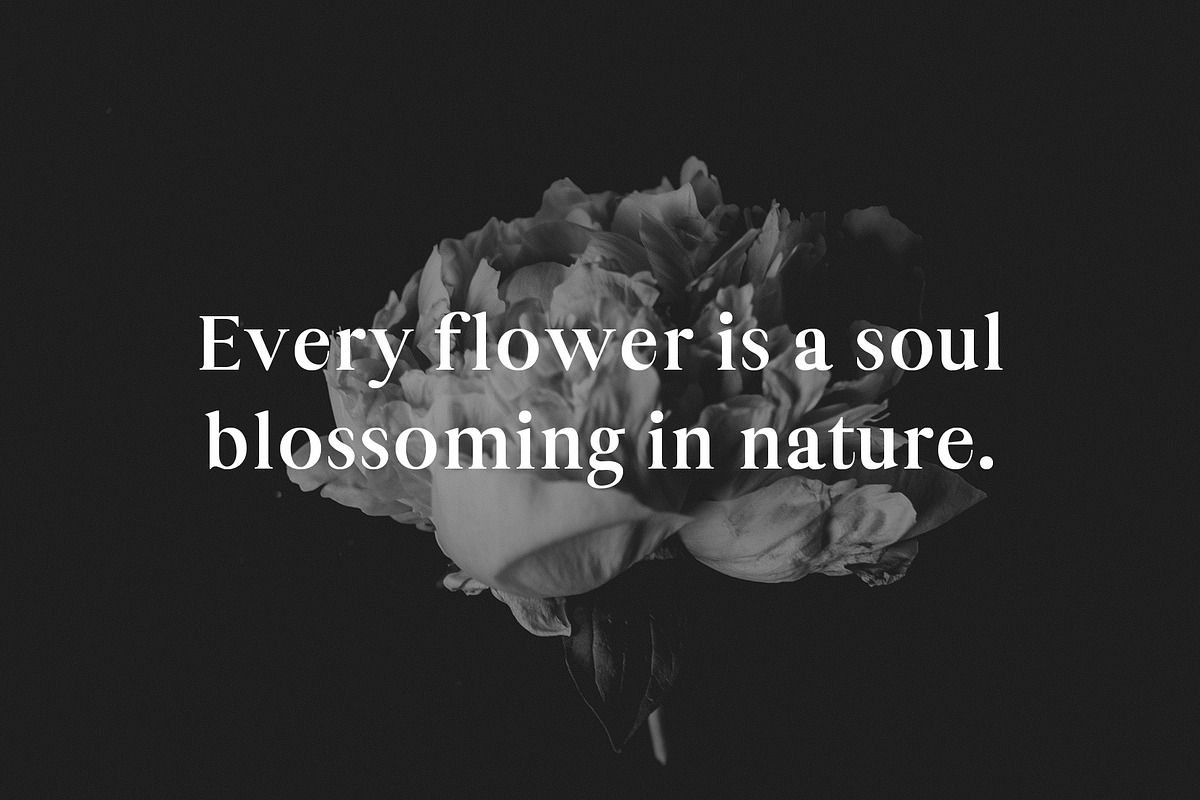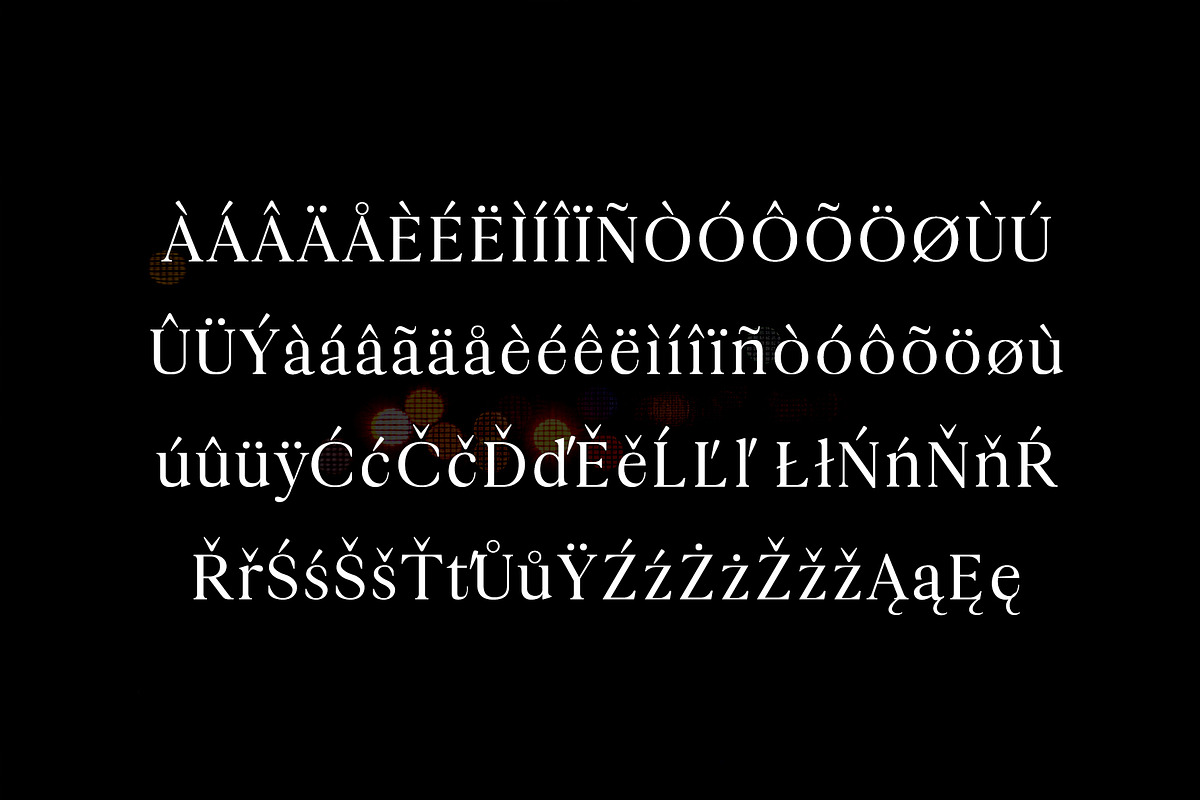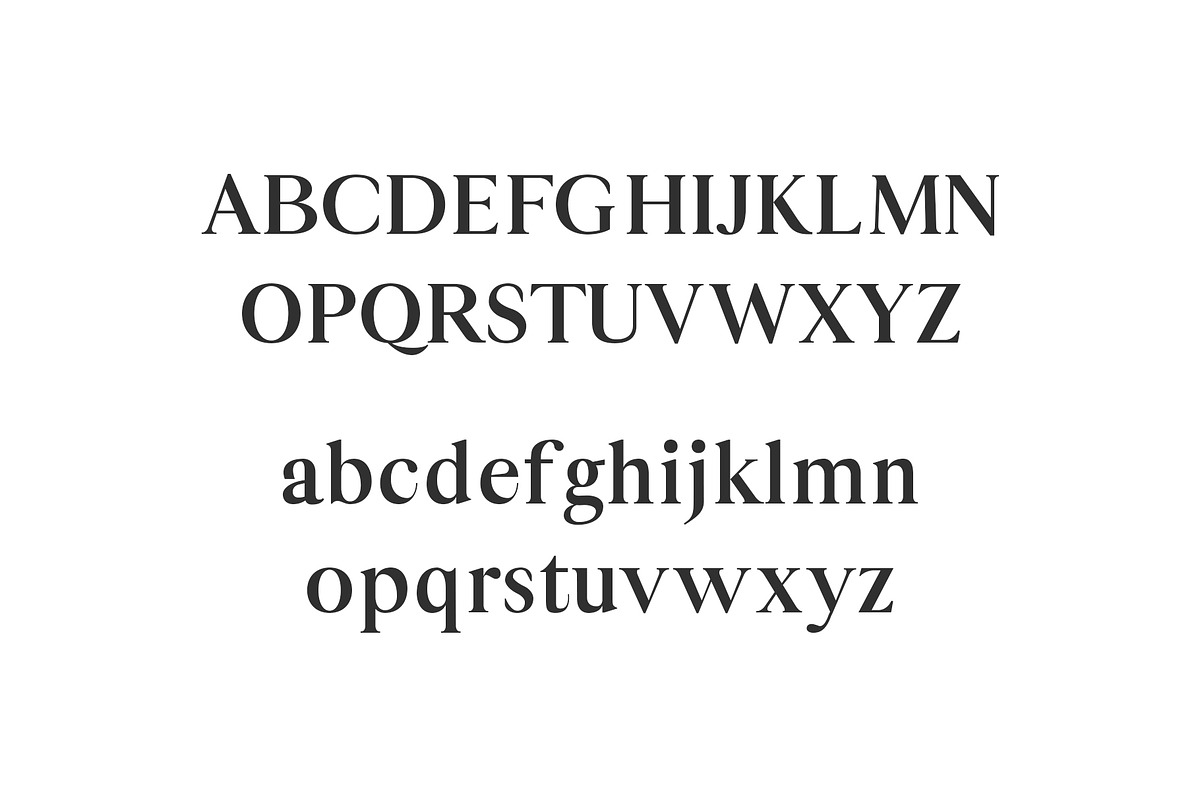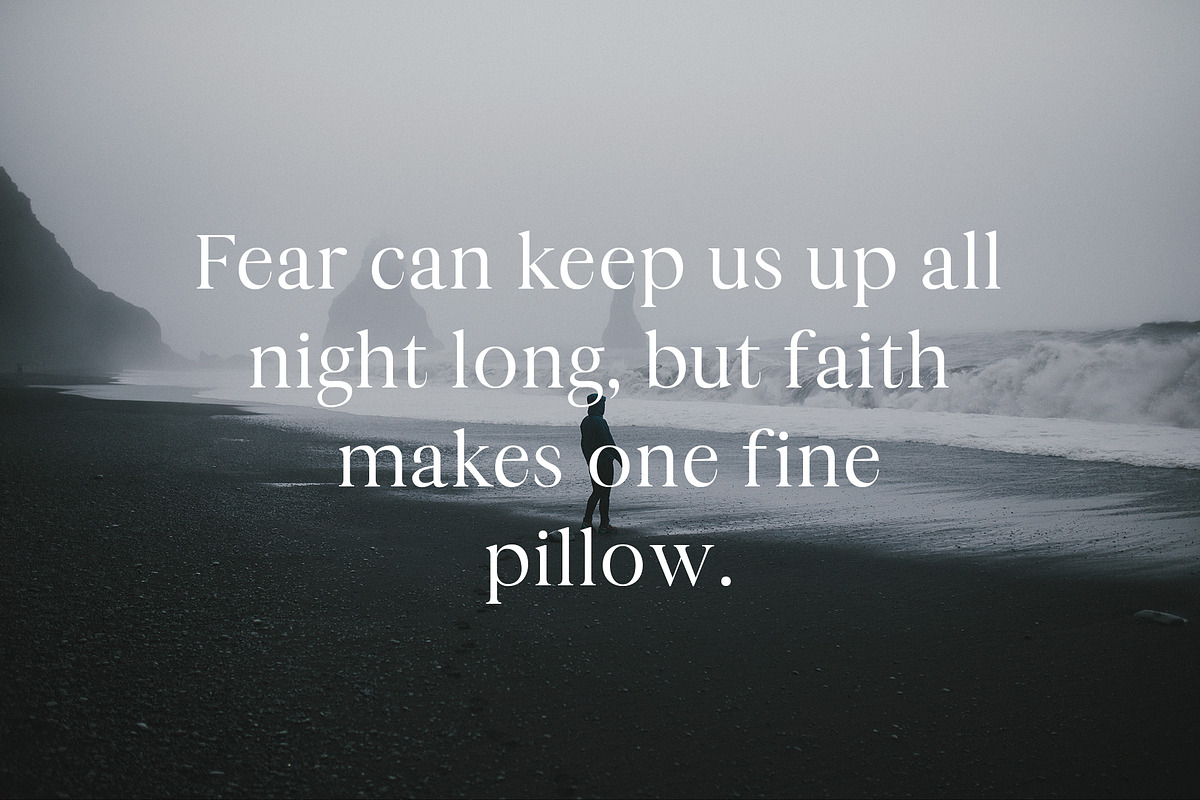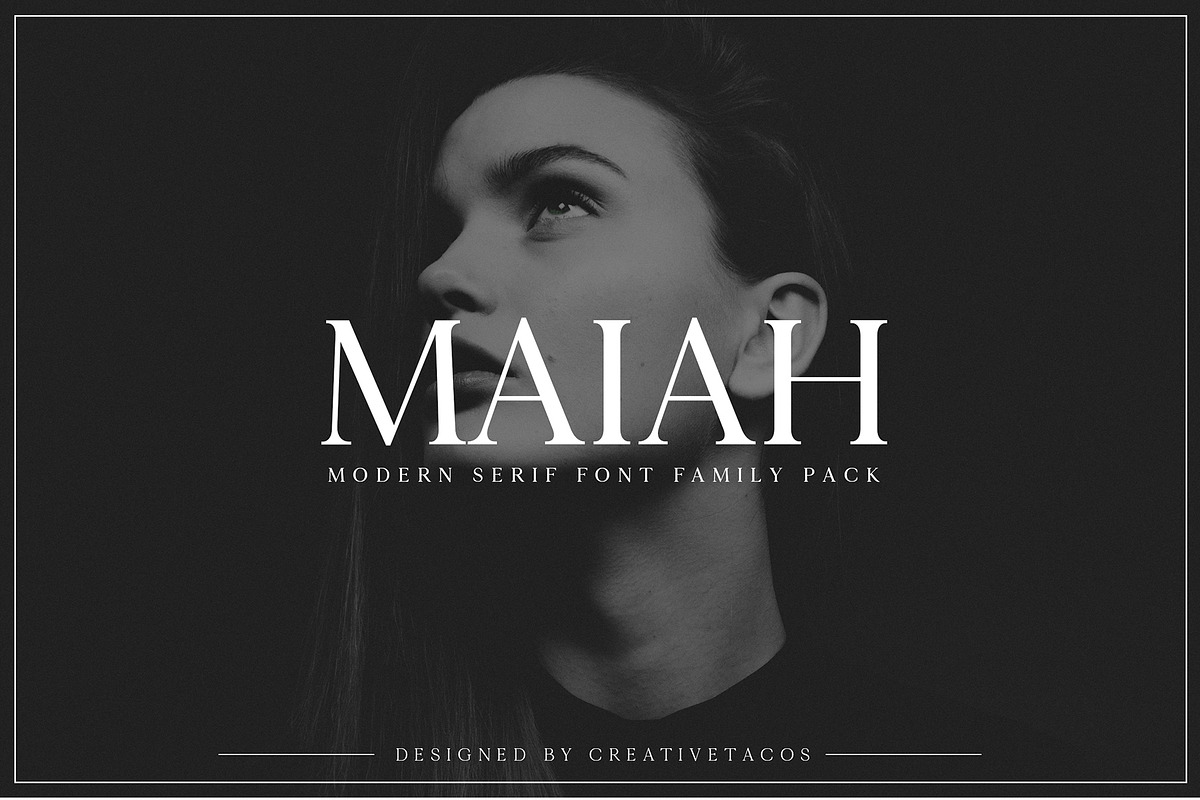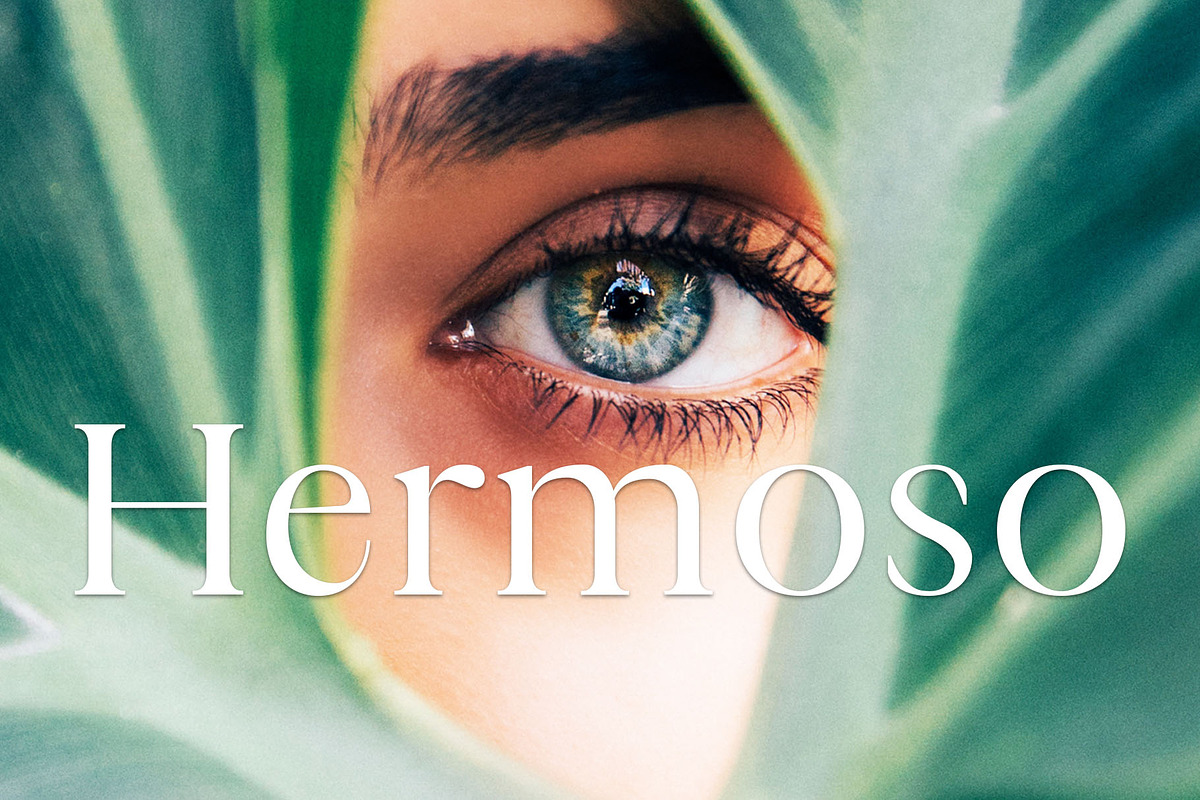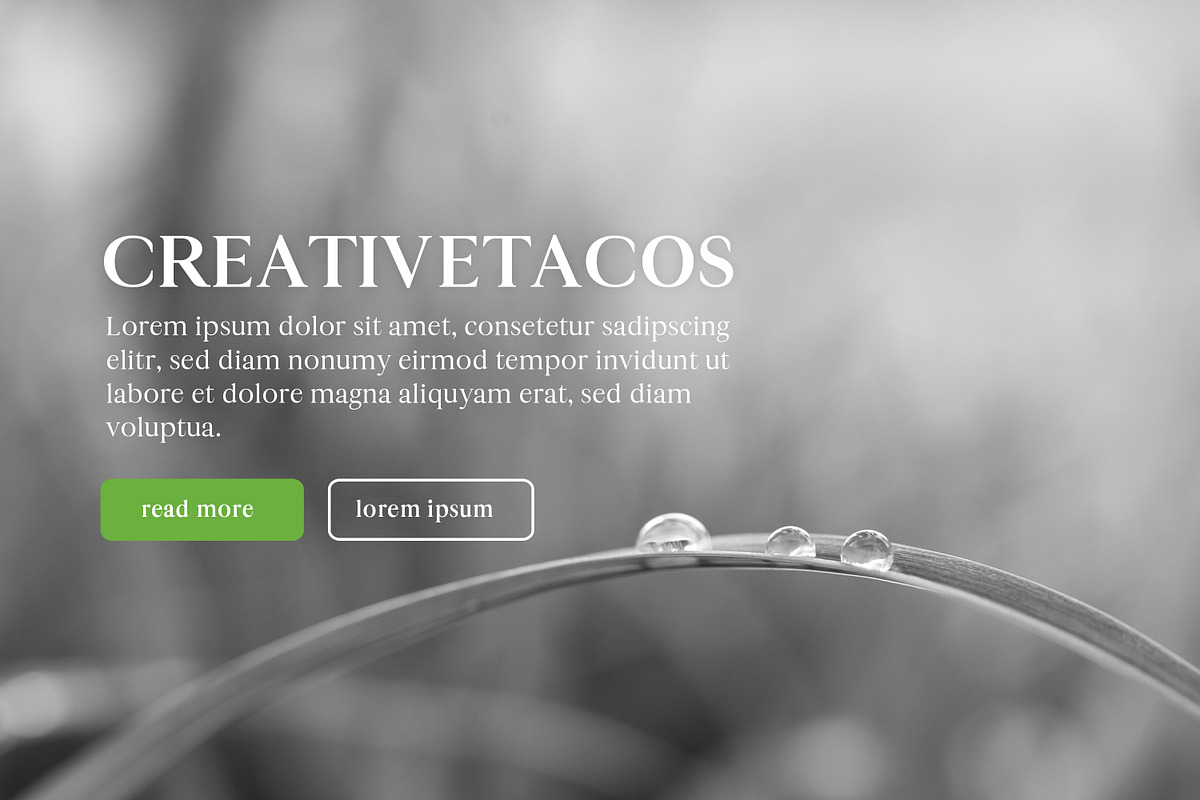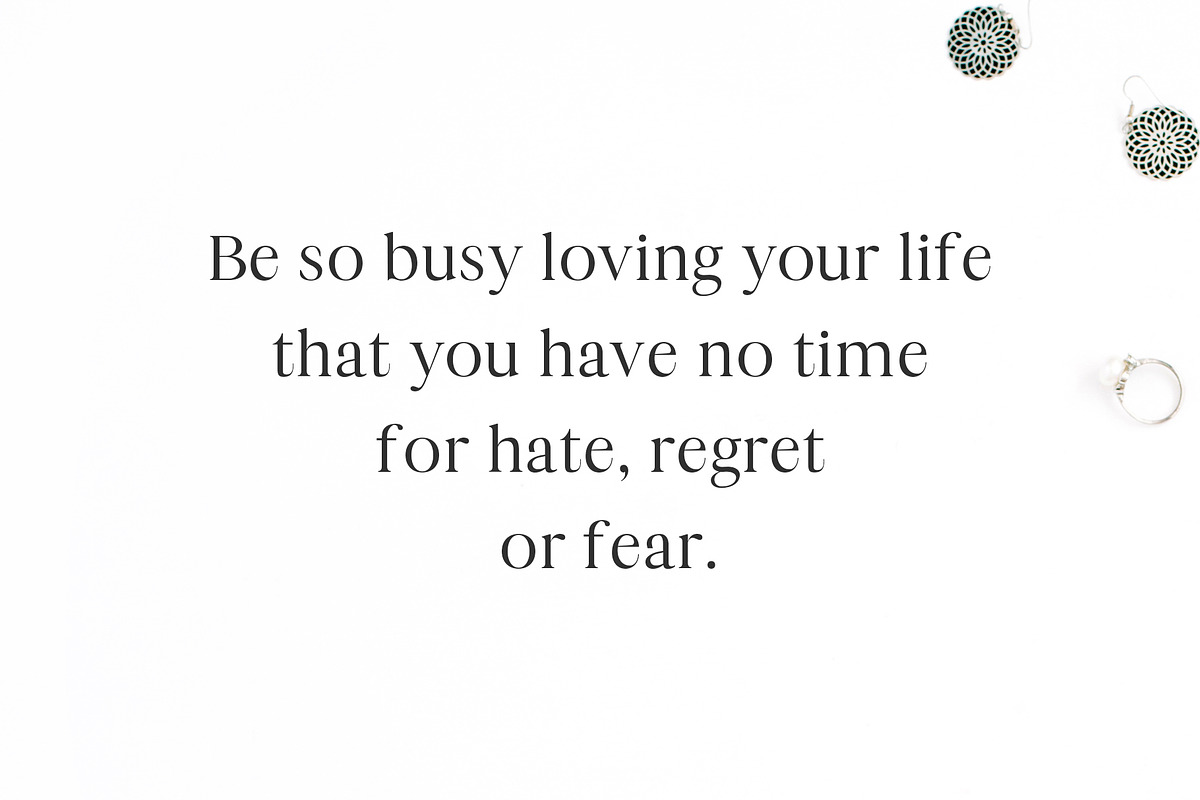
Maiah Serif Font Family Pack
Maiah is a modern and minimalist serif typeface which will add charm into your designs. It comes with 4 weights: Regular, Thin, Light and Bold versions, which contains uppercase and lowercase alphabet, numbers, basic punctuation with multilingual support. This font will pair beautifully with the script, signature or handwriting style. Maiah can be used for headlines, posters, branding, packaging, presentations, logo, quotes, titles, magazines headings, web layouts, advertising, invitations, packaging design, books, and nearly any creative design.
Included Features:
- Font Weight: Regular, Thin, Light and Bold
Maiah Font Features:
- Uppercase Letters
- Lowercase Letters
- Non English Characters ( Latin Supplement + Latin Extended A)